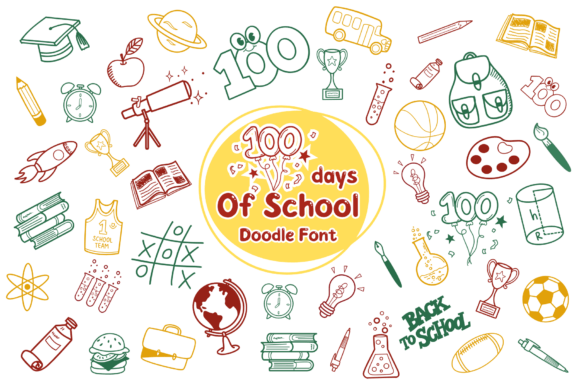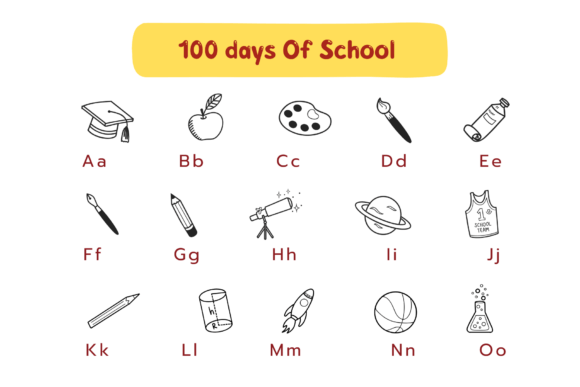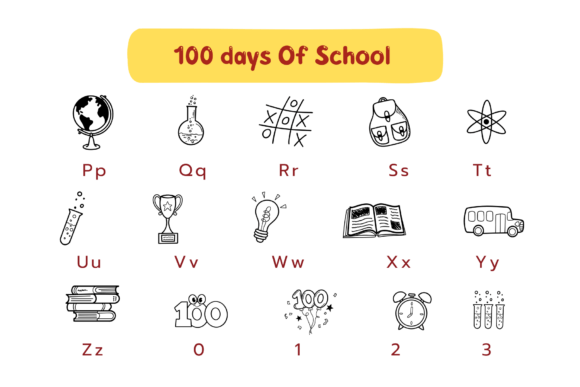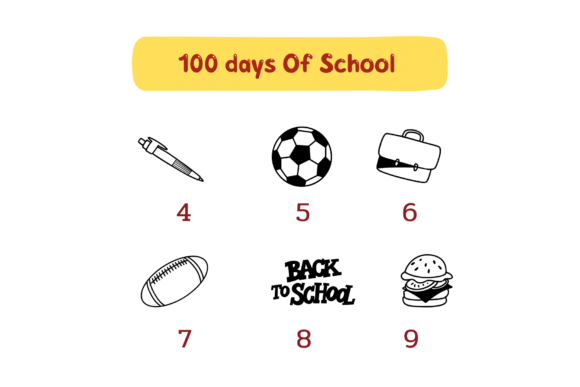
About the 100 Days of School Font
Step up your design game with 100 Days of School Font, a font that exudes confidence and style. Celebrate creativity in the classroom with the 100 Days of School Dingbats Font! This delightful font features a collection of hand-drawn school-themed doodles, including books, pencils, paintbrushes, trophies, and more. Perfect for designing fun projects like classroom decorations, student awards, lesson plans, and educational posters. These playful and versatile icons make adding charm and personality to your designs easier than ever!
This playful font’s hand-drawn style works best for headlines, short text segments on posters or invitations, and decorative elements within larger designs. It shines in projects targeted at children or emphasizing a fun, educational theme, such as school-related branding, children’s books, or celebratory materials. However, its decorative nature makes it unsuitable for body text or UI elements where readability is paramount.
Pairing it with a clean sans-serif font like Open Sans for body text provides a strong contrast, allowing the “100 Days of School Dingbats Font” to retain its visual impact. Alternatively, a classic serif like Garamond can add a touch of sophistication, creating a balance between playful and traditional.
The overall personality is cheerful and approachable, ideal for brands or projects that want to convey a sense of fun, creativity, and learning. Avoid using it where a more formal or sophisticated tone is required.
100 Days of School Font Usage Examples
100 Days of School Font Example